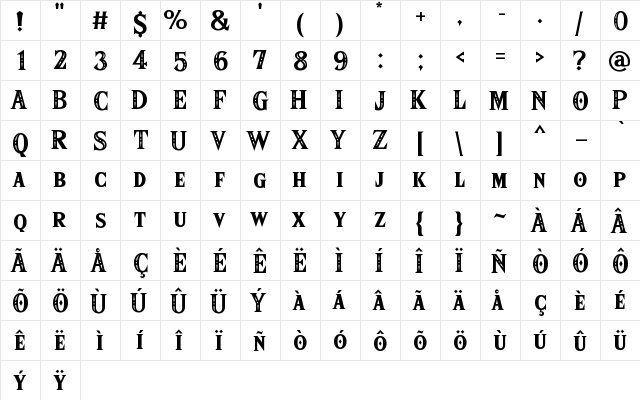
Hylia Serif Beta Regular
| Designer | Omni Jacala |
Design Context for Hylia Serif Beta Typeface
Hylia Serif Beta brings classic typographic sensibility to the table — its serifs and measured letterforms reflect centuries of print heritage.
Pro Tip: Set Hylia Serif Beta with slightly loose tracking in headlines to let each letterform's detail read clearly at display sizes.